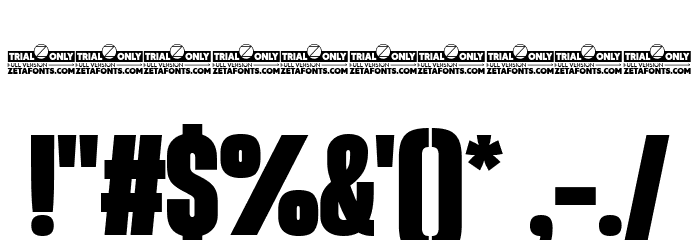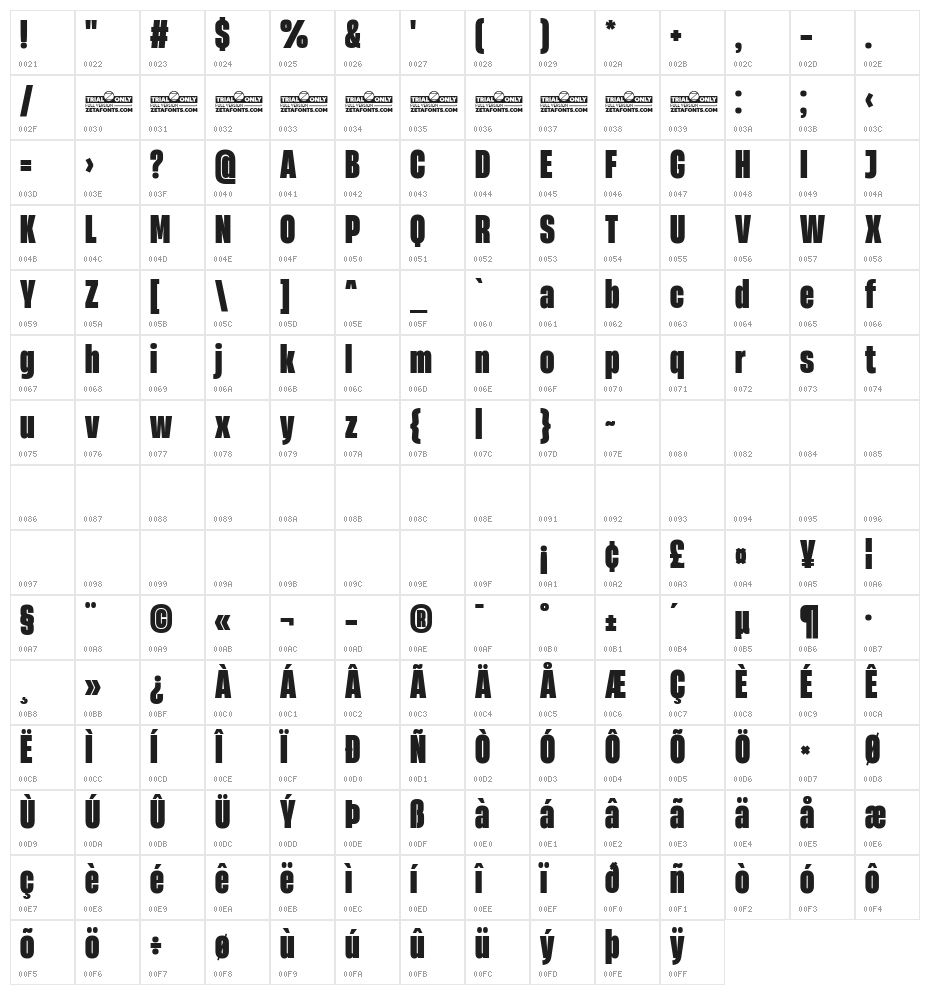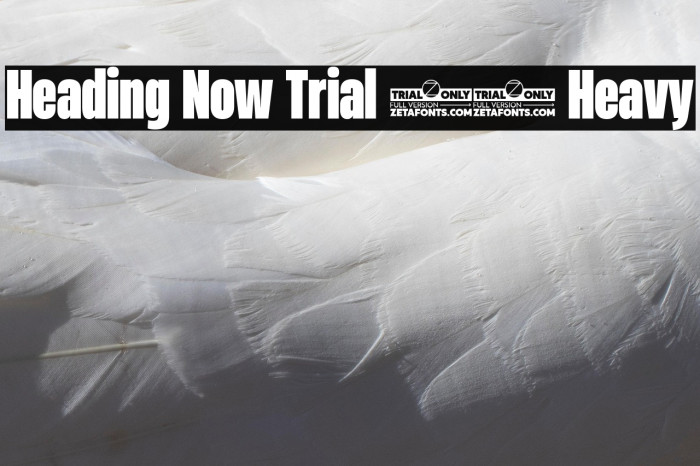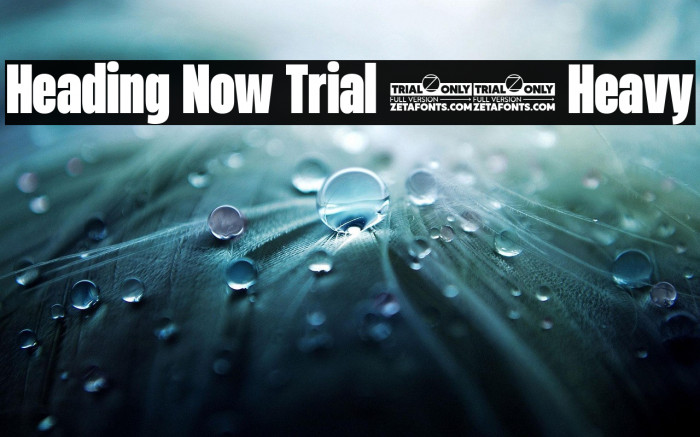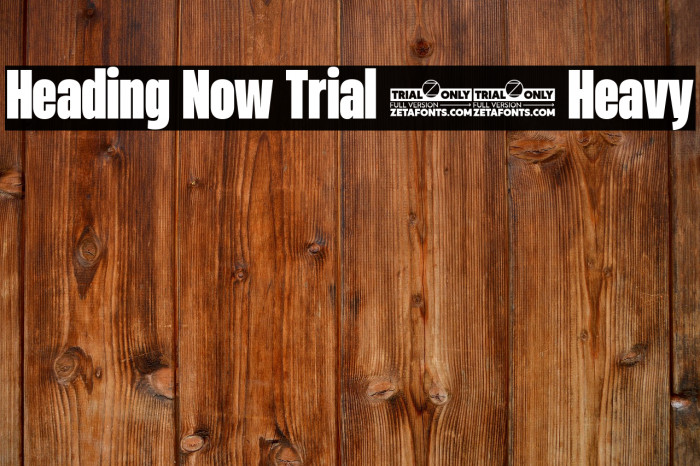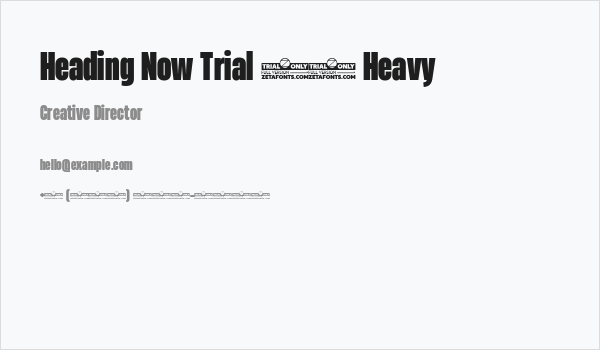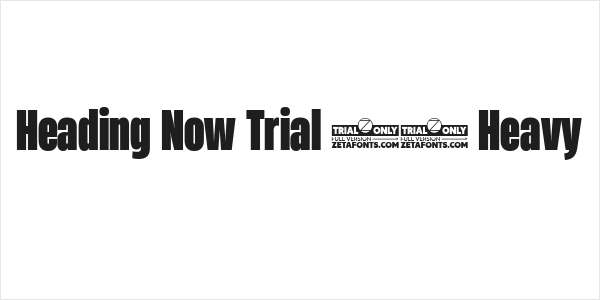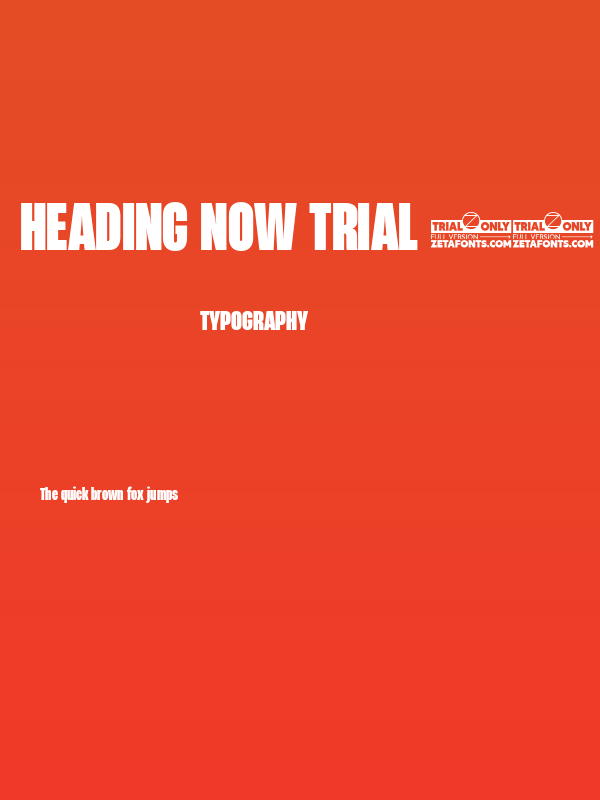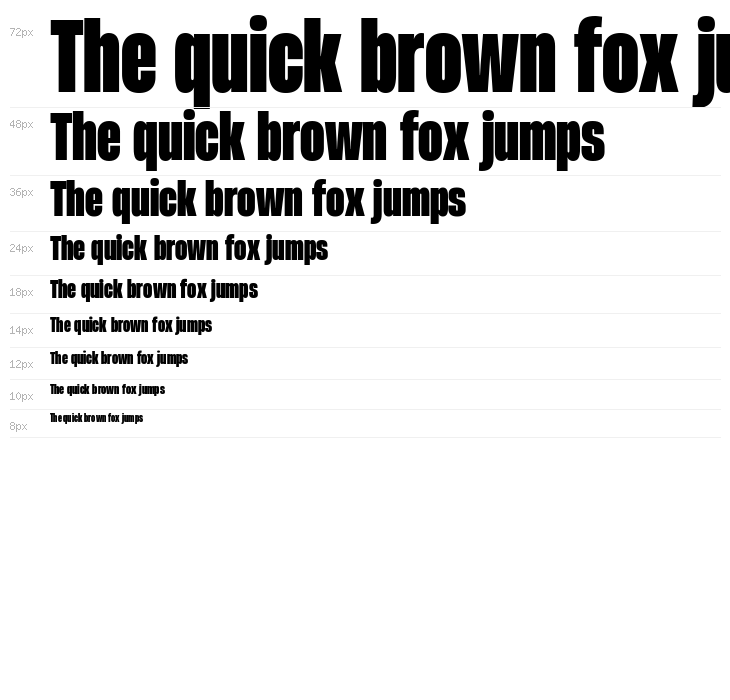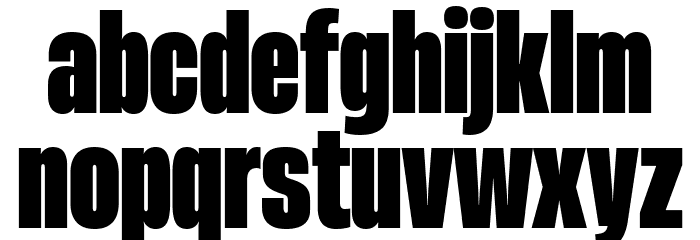
Heading Now Trial 48 Heavy Font
Heading Now Trial 48 Heavy Description
This font is a bold and impactful typeface with a strong presence, characterized by its heavy weight and condensed width. The uppercase and lowercase letters are designed with minimal contrast in stroke thickness, giving it a uniform and solid appearance. The characters are tightly spaced, enhancing its boldness and making it ideal for attention-grabbing headlines. The font's style is modern and assertive, suitable for projects that require a commanding visual impact.
| Proposed Projects | Ideal for headlines, posters, advertising, and branding projects where a strong, impactful statement is needed. |